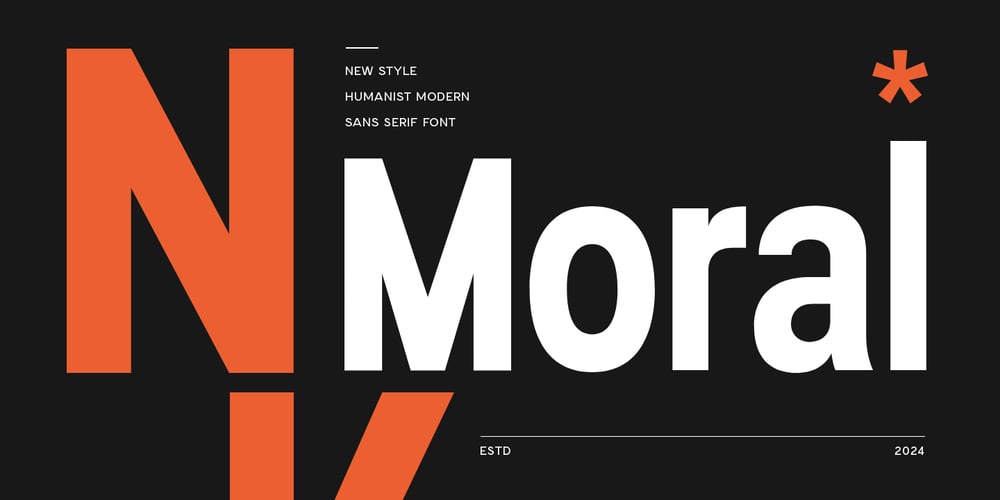
Moral
Moral font
Moral Font Family was designed by Zamroni Hamzah and published by Sensatype Studio. Moral contains 1 styles and family package options. Moral is a Humanist Modern Sans Serif Font that’s well-balanced modern font with a minimalist, unique, and premium sans serif, font that you can combine to get any variations and unique shapes easily just in seconds with choose alternates of them. It is a sans serif font with minimalist style that perfect for branding projects, logo, poster designs, social media posts, advertisements, product packaging, product designs, label, photography, watermark, invitation, stationery, and any projects, it makes with a high level of legibility.What’s Included: Moral font Alternate Characters Character set A-Z Numerals & Punctuation Accented Characters (West Europe) Works on PC & Mac Recommended using Adobe Illustrator or Adobe Photoshop. Wish you enjoy our font. 🙂